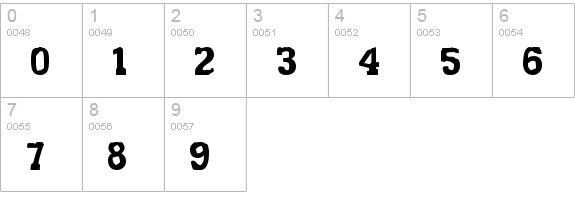
Decaying Kuntry Font Details
The Decaying Kuntry font is a unique and rustic typeface that exudes a sense of nostalgia and charm. With its weathered appearance and rough edges, this font brings a touch of vintage flair to any design project. Perfect for creating a rustic ambiance or adding a distressed look to your artwork, Decaying Kuntry is versatile and eye-catching. What sets this font apart is its free-spirited and authentic vibe, making it perfect for projects that call for a touch of character and personality. Whether you're working on a branding project, a poster design, or a social media graphic, Decaying Kuntry will add a touch of rugged charm to your work. Best of all, Decaying Kuntry is freely available to download at FontsMarket.com, making it easily accessible to designers and creatives looking to add a touch of rustic charm to their projects. Embrace the vintage appeal of Decaying Kuntry and elevate your designs with this one-of-a-kind font.